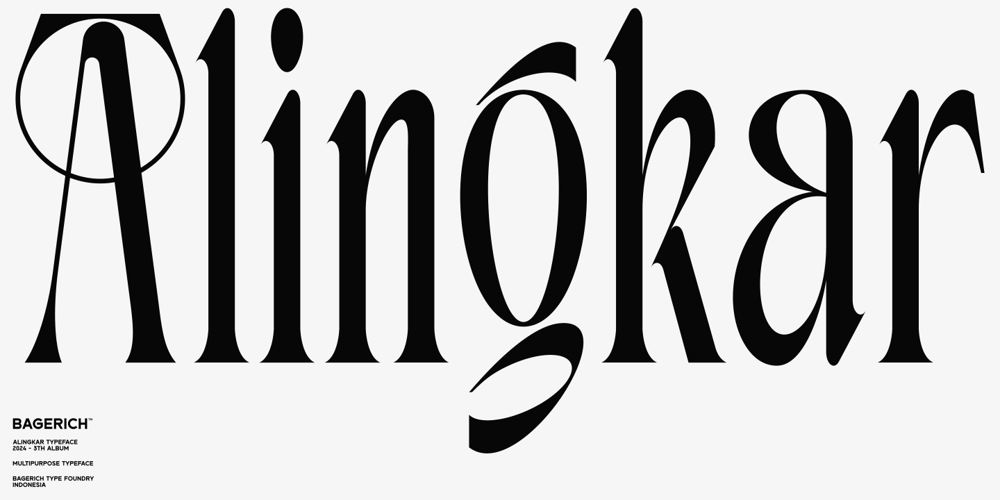
Alingkar
Alingkar font
Alingkar Font Family was designed by Reza Rasenda and published by Zealab Fonts Division. Alingkar contains 1 styles and family package options. Alingkar is high contrast serif font features a mixed modern-classic design. Alingkar support multilingual languages, numbers, punctuation and alternative-ligatures. Create unique & beautiful logotype, use it as an elegant solution for your next magazine layout, or choose Alingkar for any graphics that require a sleek look with a elegant flair.